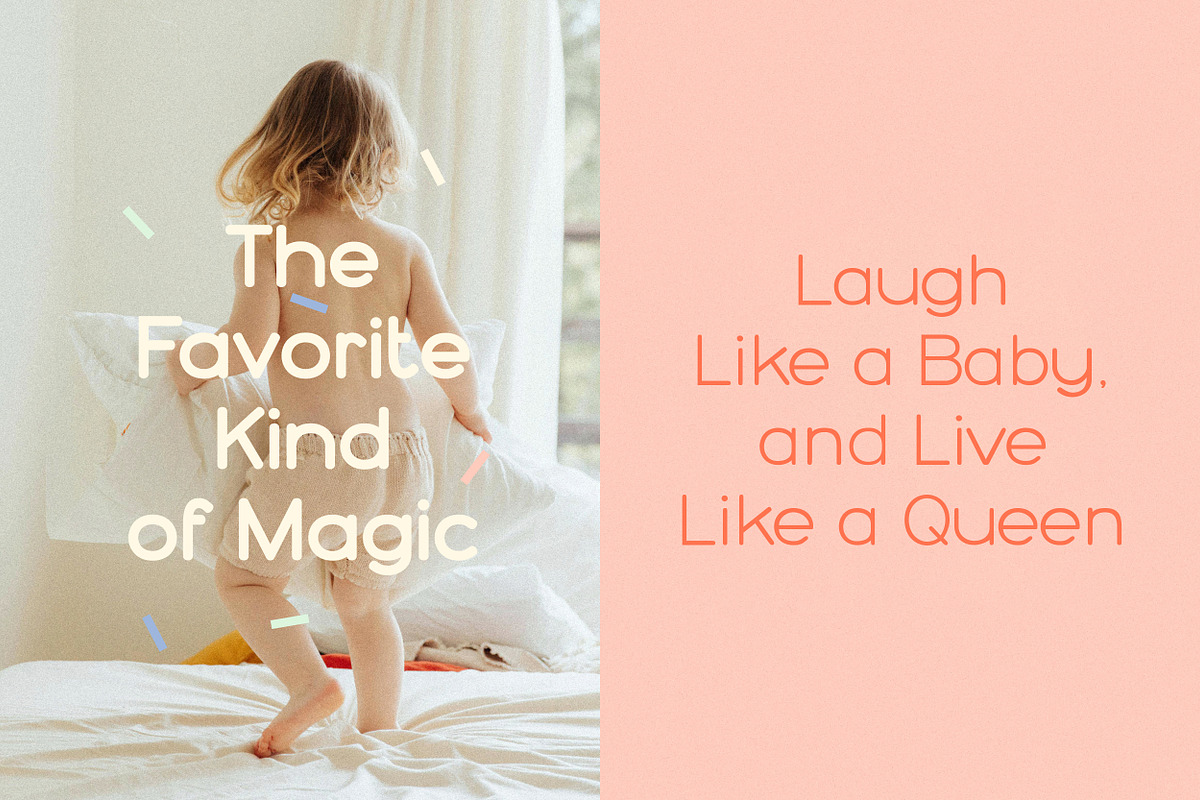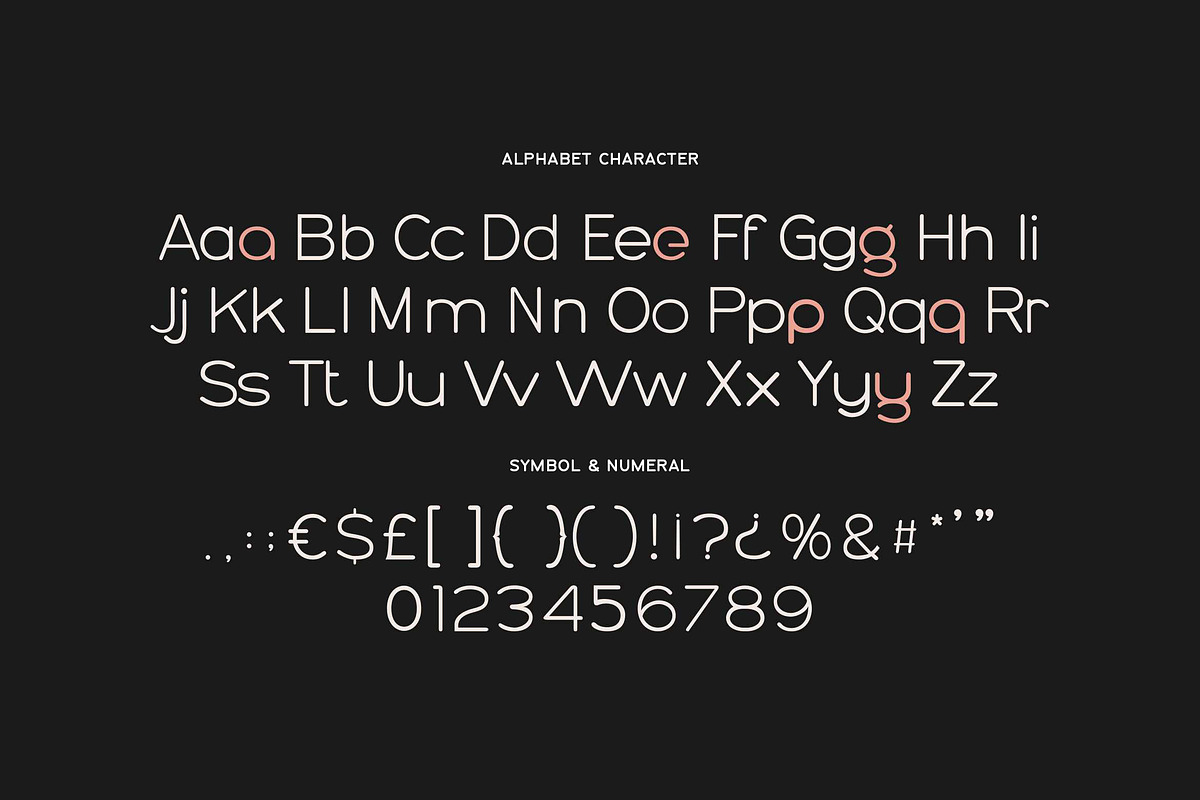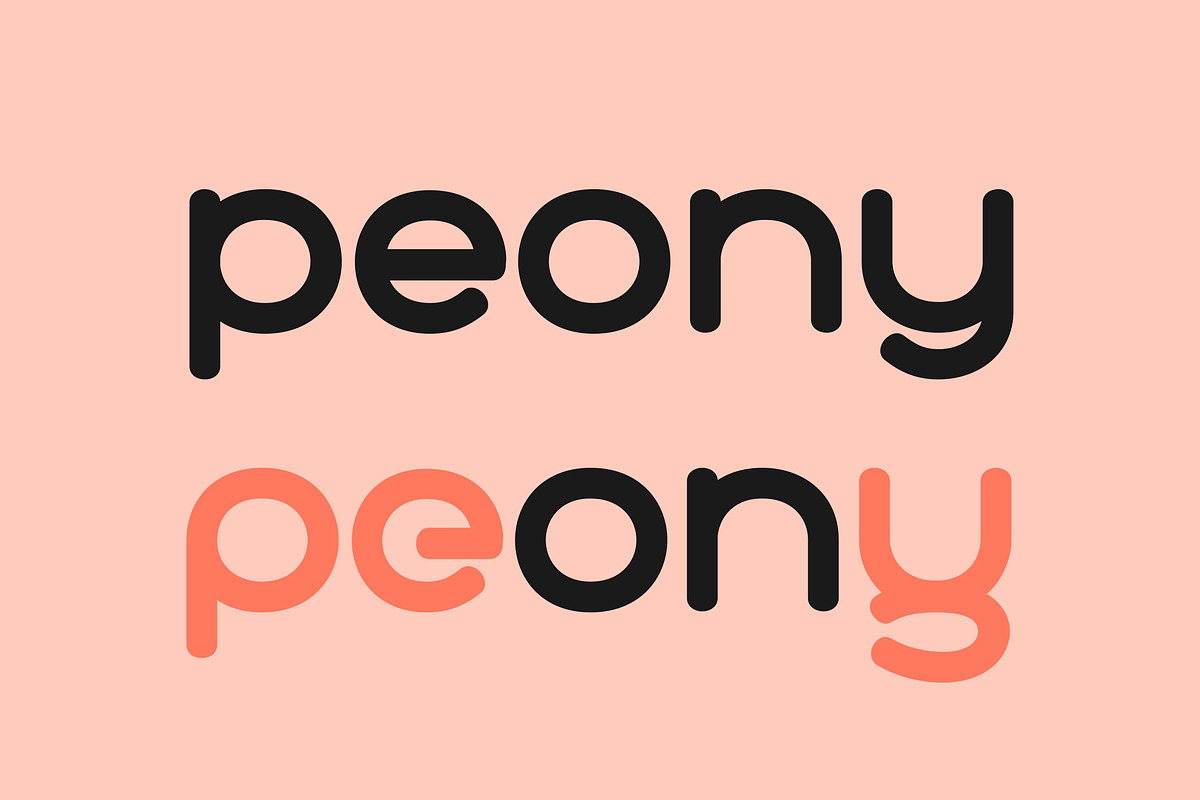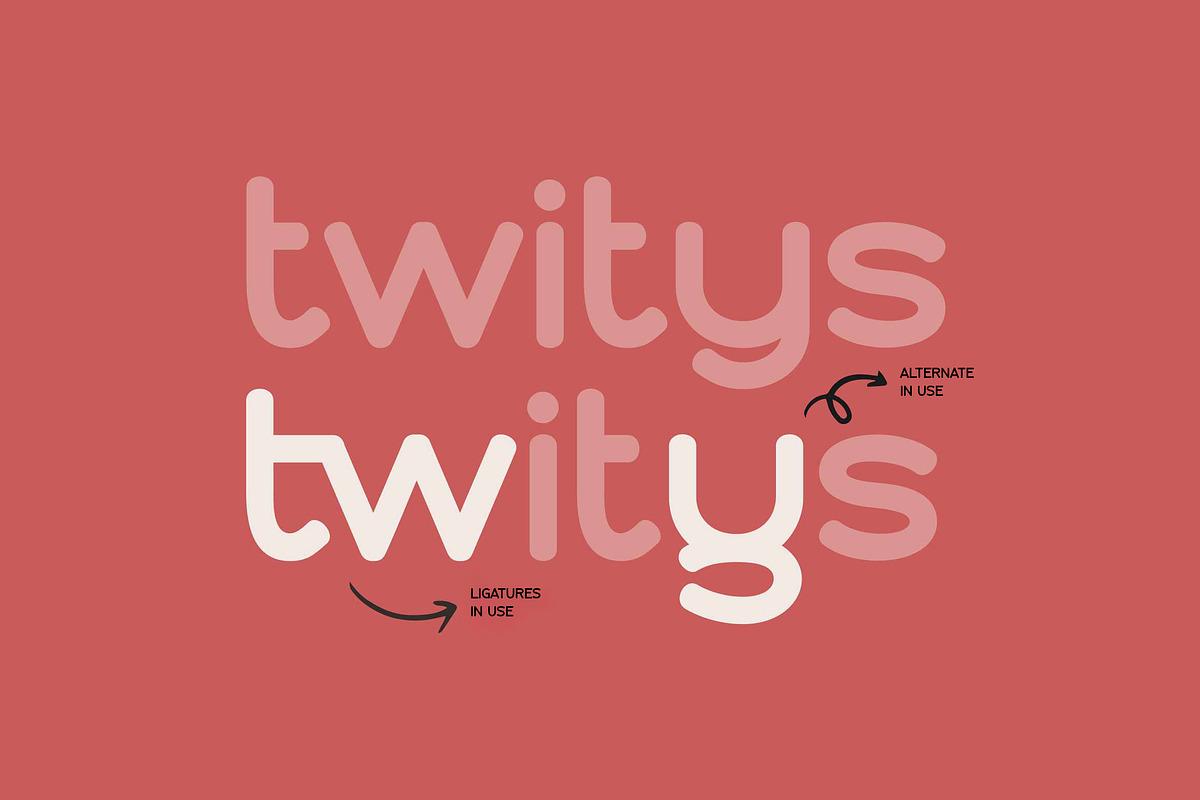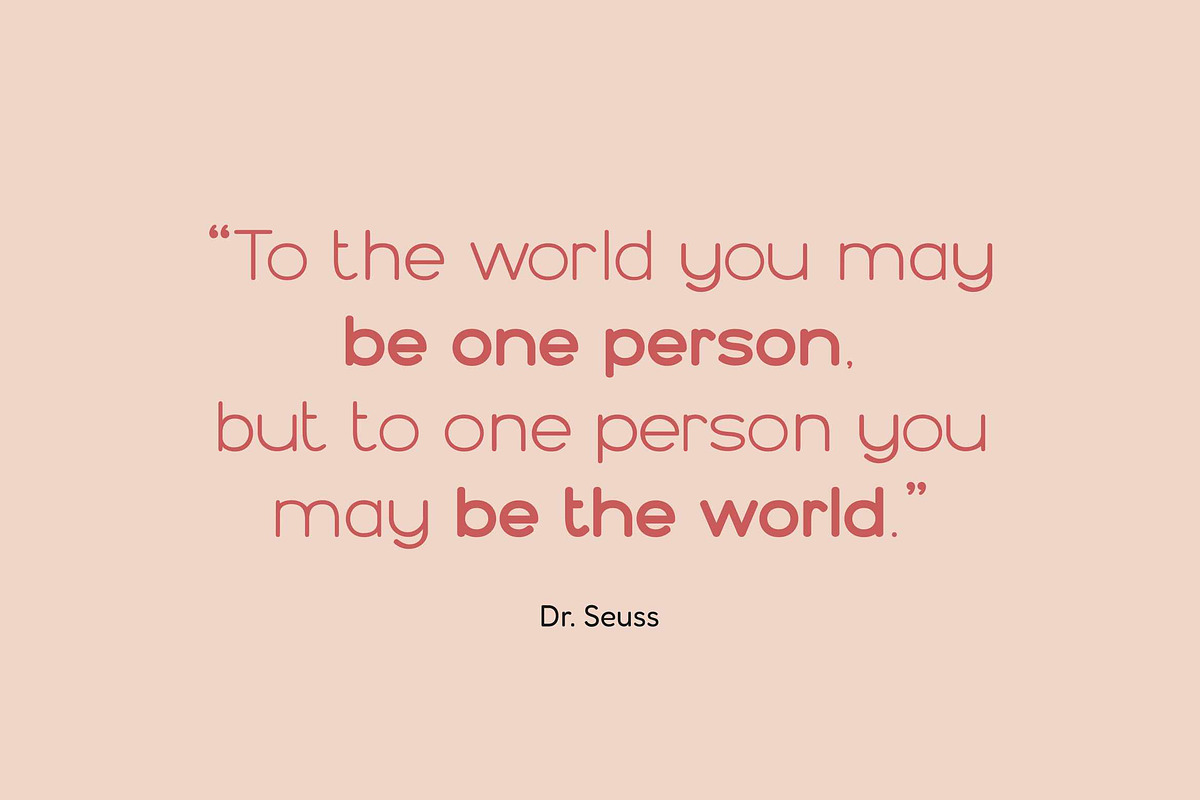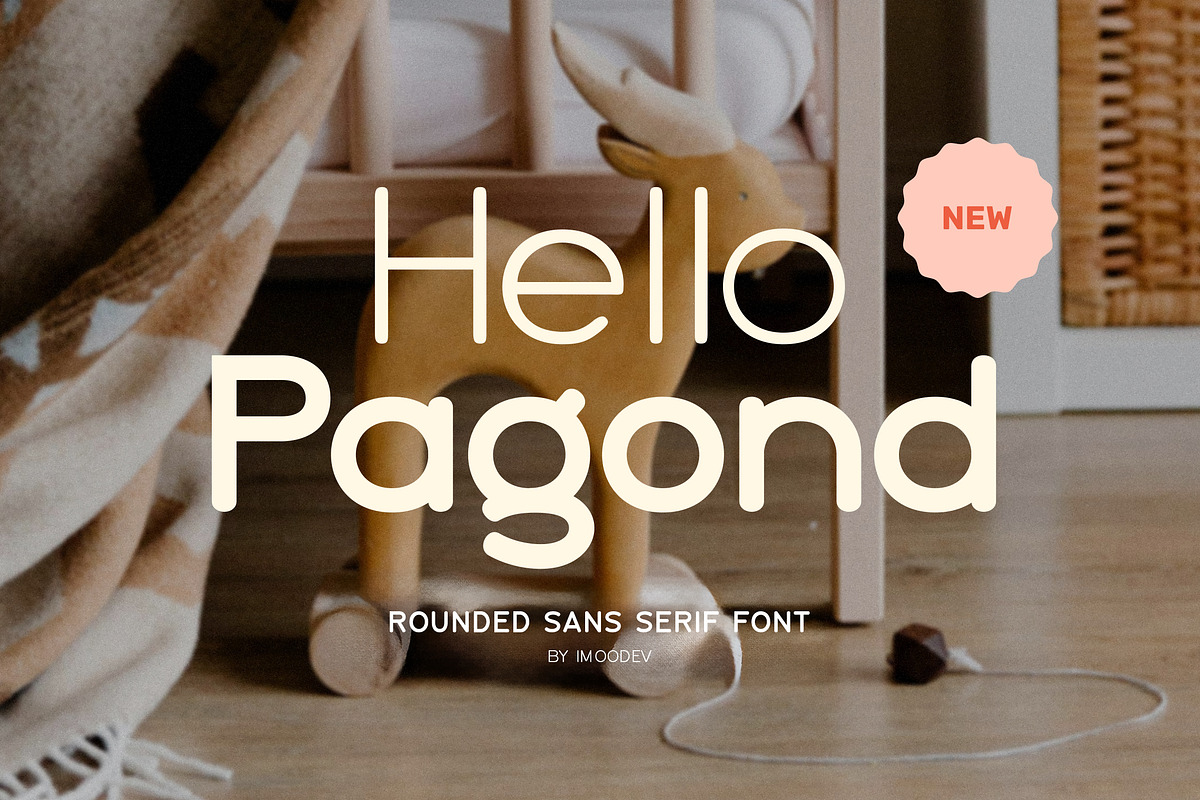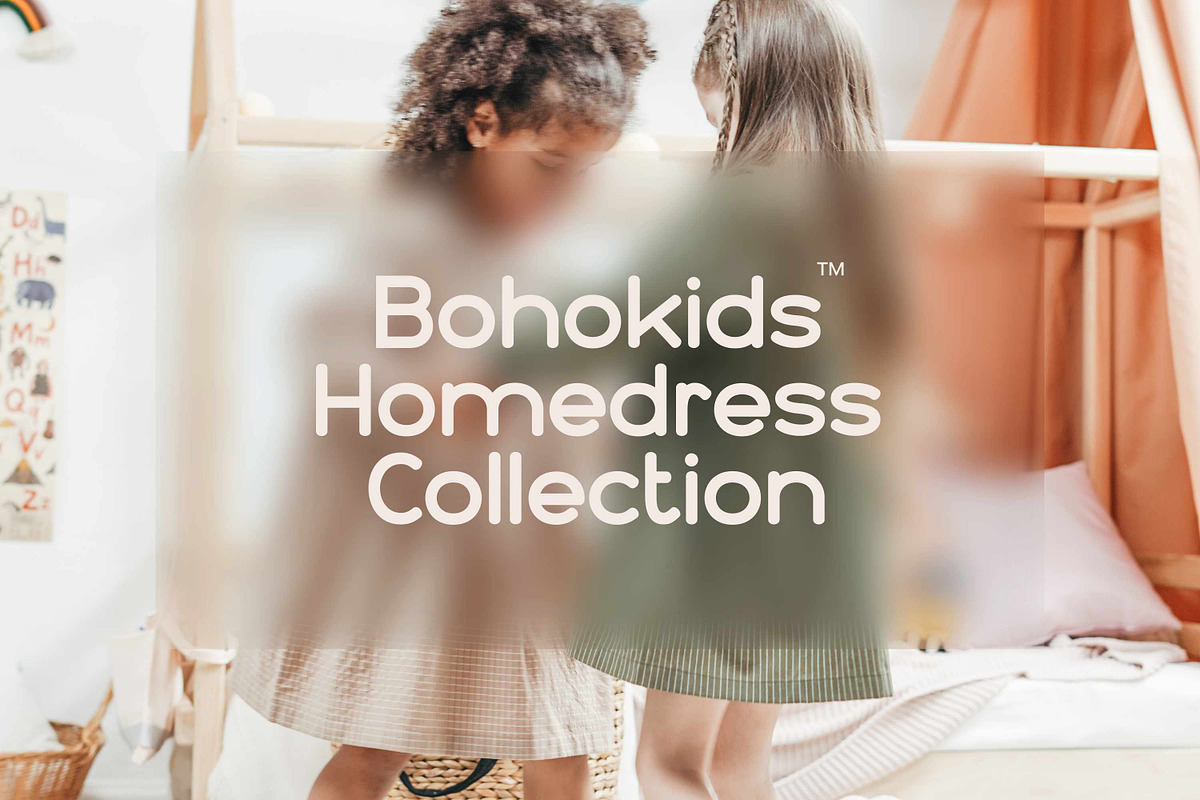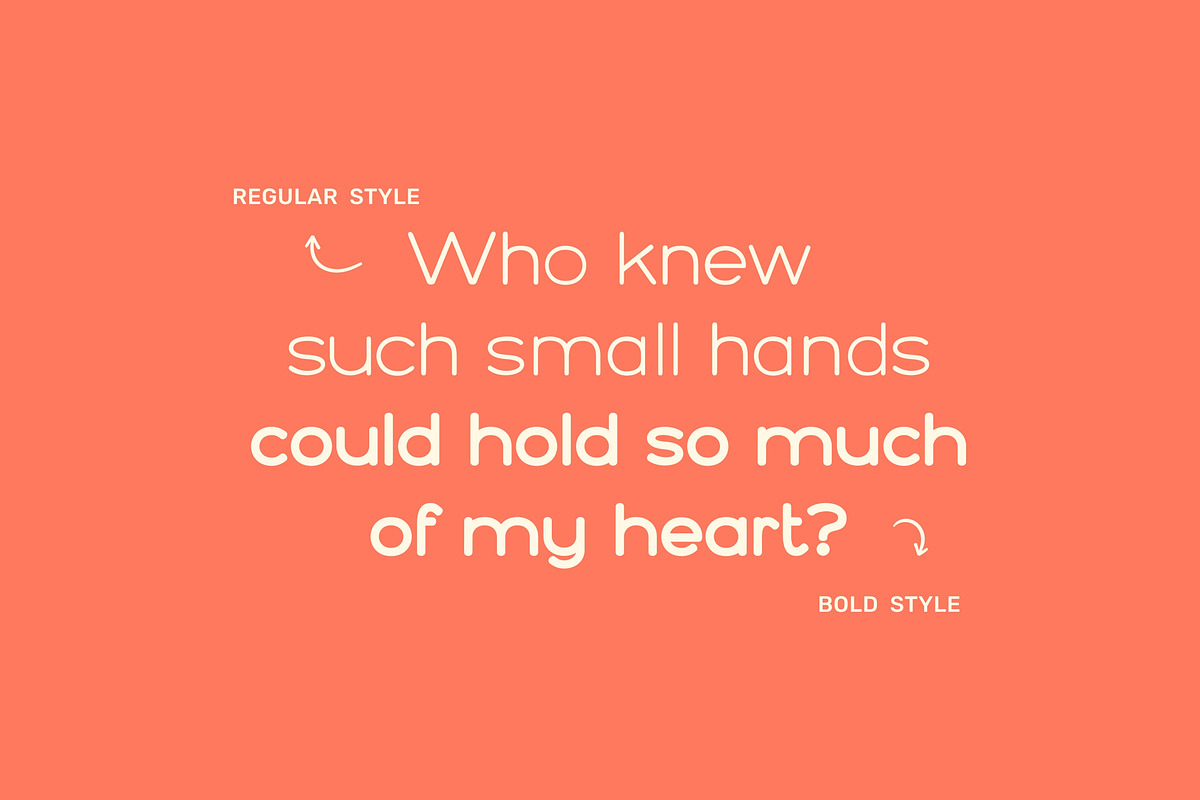
Hello Pagond | Minimalist Sans Serif
Hello Pagond is a monolinear rounded sans serif font with perfectly uniform stroke weight and softly curved letterforms. Its letterforms are built on geometric shapes with smooth, rounded edges, giving the typeface a soft and inviting appearance.
Offered in both a clean regular and a slightly heavier bold. The font is minimal, yet playful, making it perfect for kids clothing brands, educational materials, stationery, birthday invitations, baby shower stationery, social media quotes and greeting card messages.
- Uppercase and Lowecase Characters.
- Numerals and Punctuations.
- Alternates and Ligatures.
- Multilingual Support.